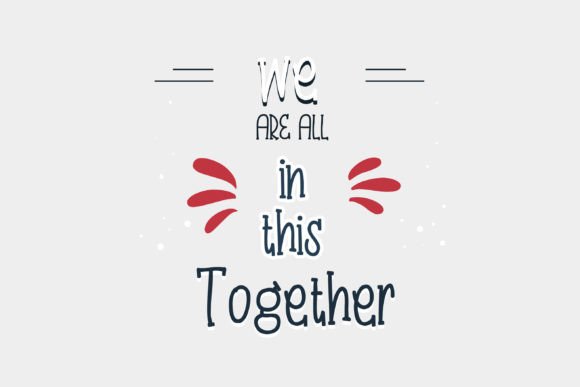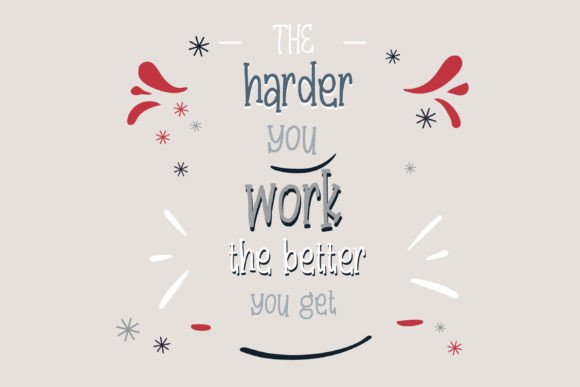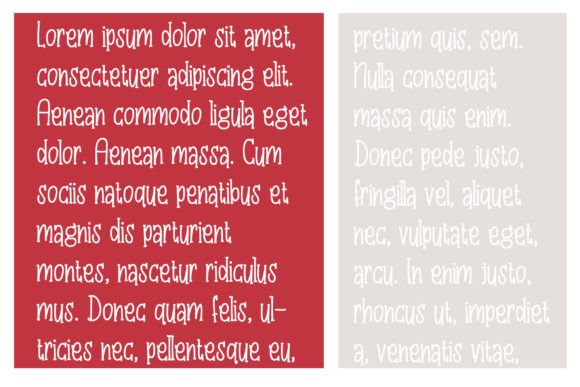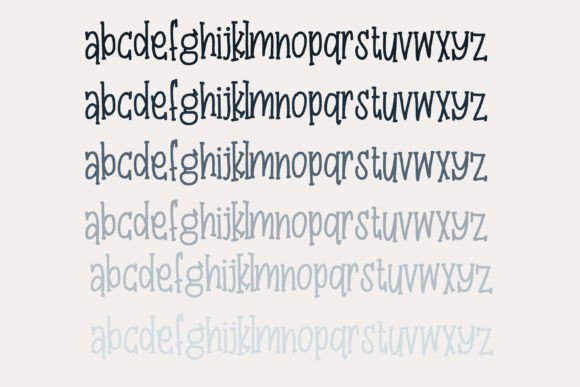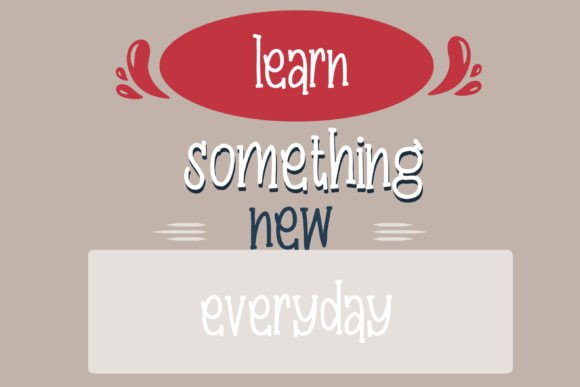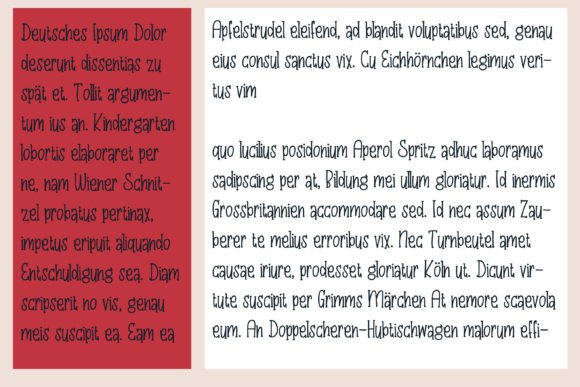
Introducing Great Greetings Font: Add a Touch of Whimsy to Your Winter Designs
Are you looking for a font that can add a dash of festive fun to your winter designs? Look no further than Great Greetings, a lovely and sweet handwritten font that’s perfect for the season. With its playful flourishes and charming lettering, Great Greetings is sure to become your go-to font for creating unique and eye-catching designs.
What Makes Great Greetings Font So Special?
Great Greetings is a beautifully crafted handwritten font that’s designed to evoke the feeling of warmth and joy. Its festive flourishes make it perfect for adding a touch of whimsy to your winter designs, whether you’re creating holiday cards, gift tags, or social media graphics. The font’s sweet and playful style is sure to delight your audience and leave a lasting impression.
Key Features of Great Greetings Font
- Handwritten style: Great Greetings is a carefully crafted handwritten font that mimics the look and feel of traditional penmanship.
- Festive flourishes: The font features playful flourishes that add a touch of festivity to your designs, making it perfect for winter and holiday-themed projects.
- Unique accent: Great Greetings is designed to add a unique accent to your designs, setting them apart from the crowd and making them more engaging.
How to Use Great Greetings Font in Your Designs
Great Greetings font is versatile and can be used in a variety of design projects, including:
- Holiday cards and invitations: Add a touch of festivity to your holiday cards and invitations with Great Greetings font.
- Gift tags and wrapping paper: Use Great Greetings font to create custom gift tags and wrapping paper that will make your gifts stand out.
- Social media graphics: Add a touch of whimsy to your social media graphics with Great Greetings font, making them more engaging and shareable.
- Winter-themed designs: Use Great Greetings font to create winter-themed designs, such as snowflakes, snowmen, and winter landscapes.
Tips and Tricks for Getting the Most Out of Great Greetings Font
Here are some tips and tricks for getting the most out of Great Greetings font:
- Experiment with different colors: Great Greetings font looks great in a variety of colors, so don’t be afraid to experiment and find the perfect hue for your design.
- Mix and match with other fonts: Great Greetings font pairs well with other fonts, so try mixing and matching it with different fonts to create a unique look.
- Use it for headlines and titles: Great Greetings font is perfect for headlines and titles, adding a touch of festivity and whimsy to your designs.
Great Greetings font is a lovely and sweet handwritten font that’s perfect for adding a touch of festivity to your winter designs. With its playful flourishes and charming lettering, it’s sure to become your go-to font for creating unique and eye-catching designs. Whether you’re a designer or crafter, Great Greetings font is a must-have for your font collection.